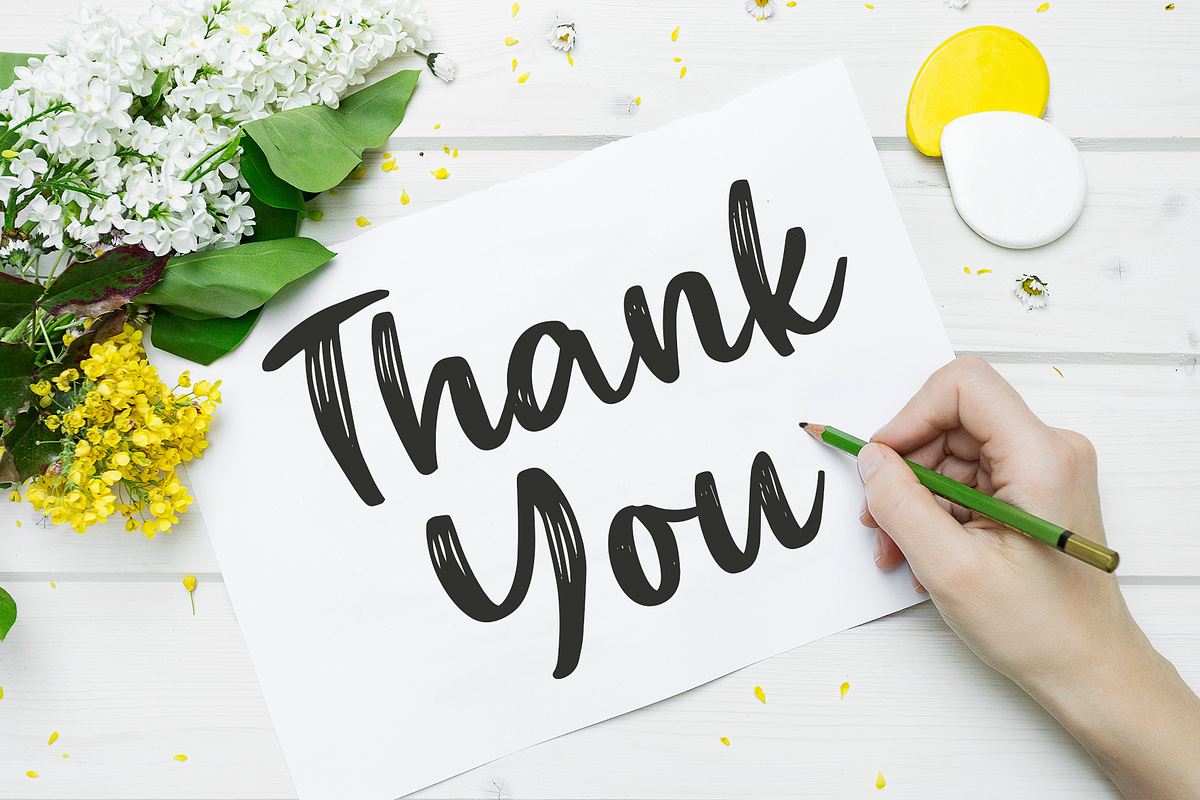
Winter Garden
Winter Garden this is a beautiful handwritten font family that includes a script, a script with streaks, sans and sans bold. These fonts are great for creating templates, invitations, branding, marketing, book covers, magazines, stationery, logo design and much more.